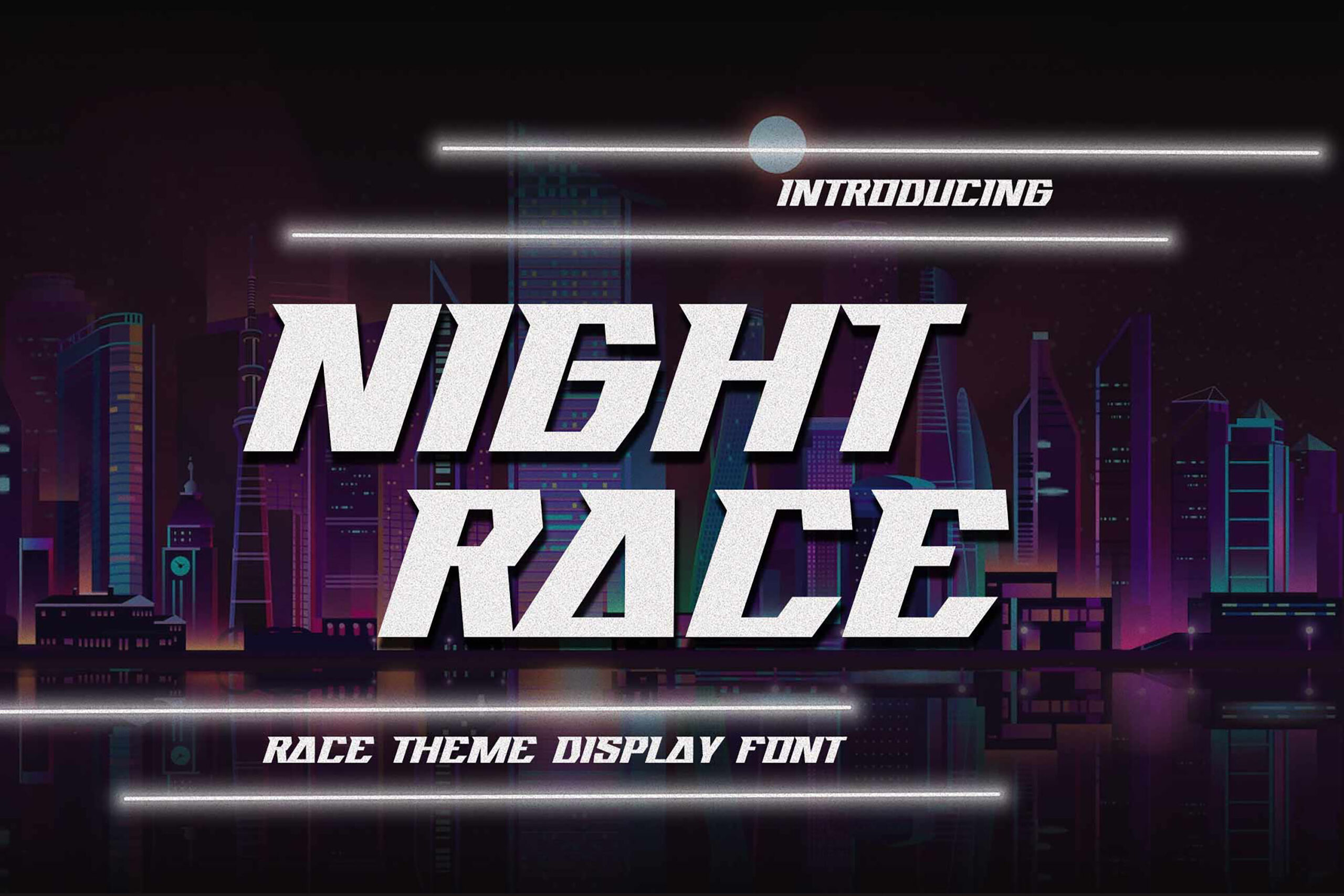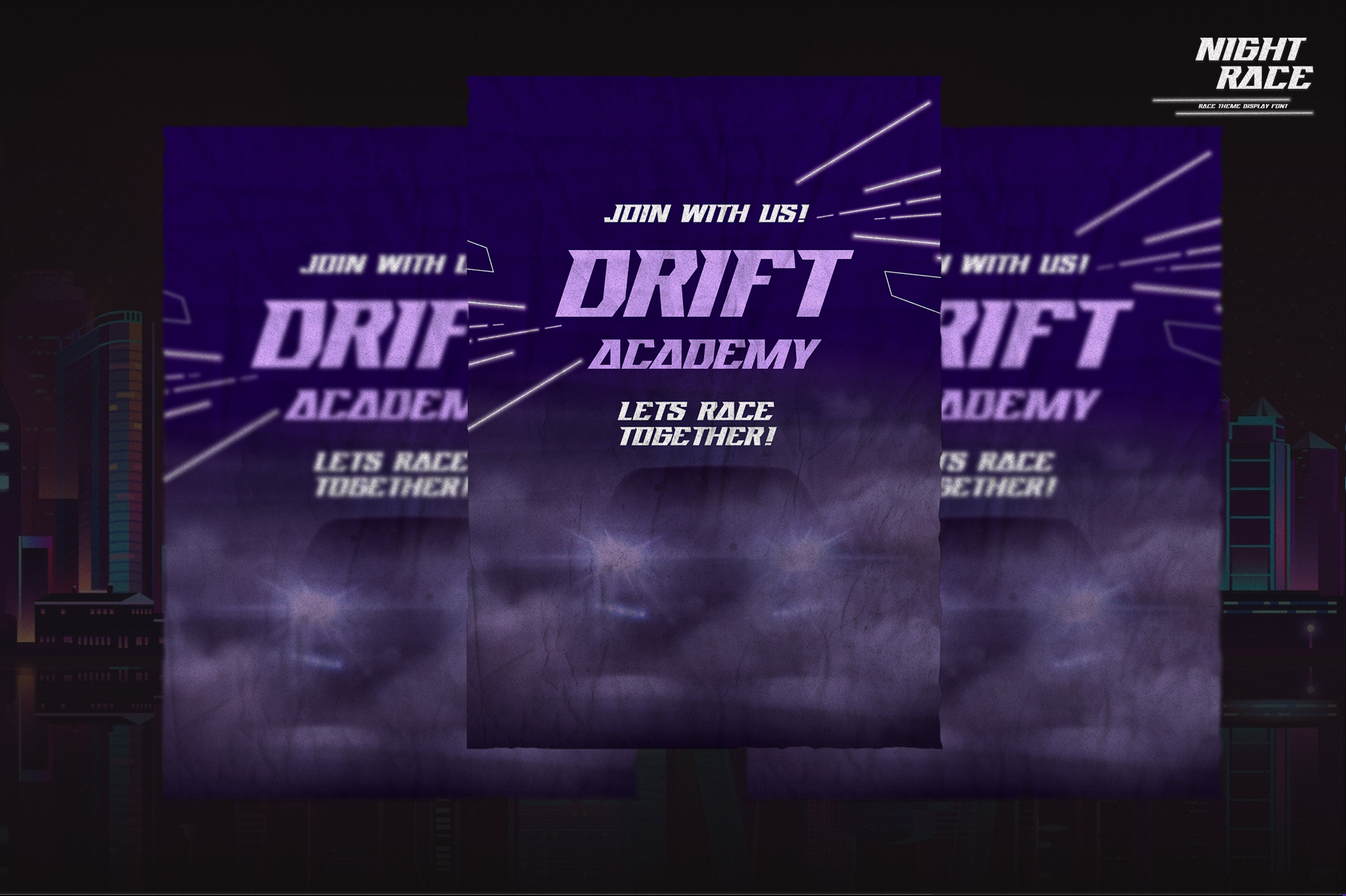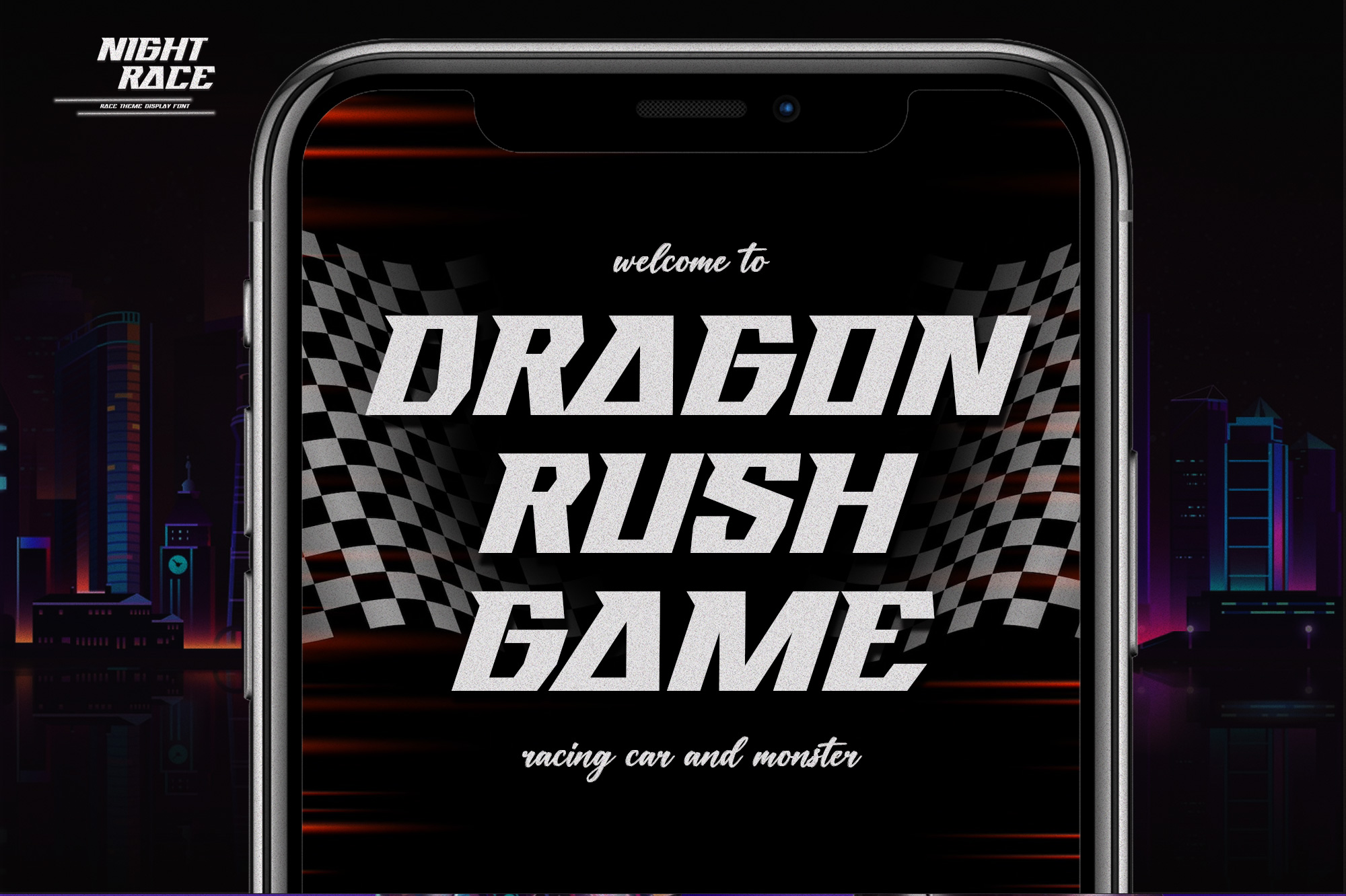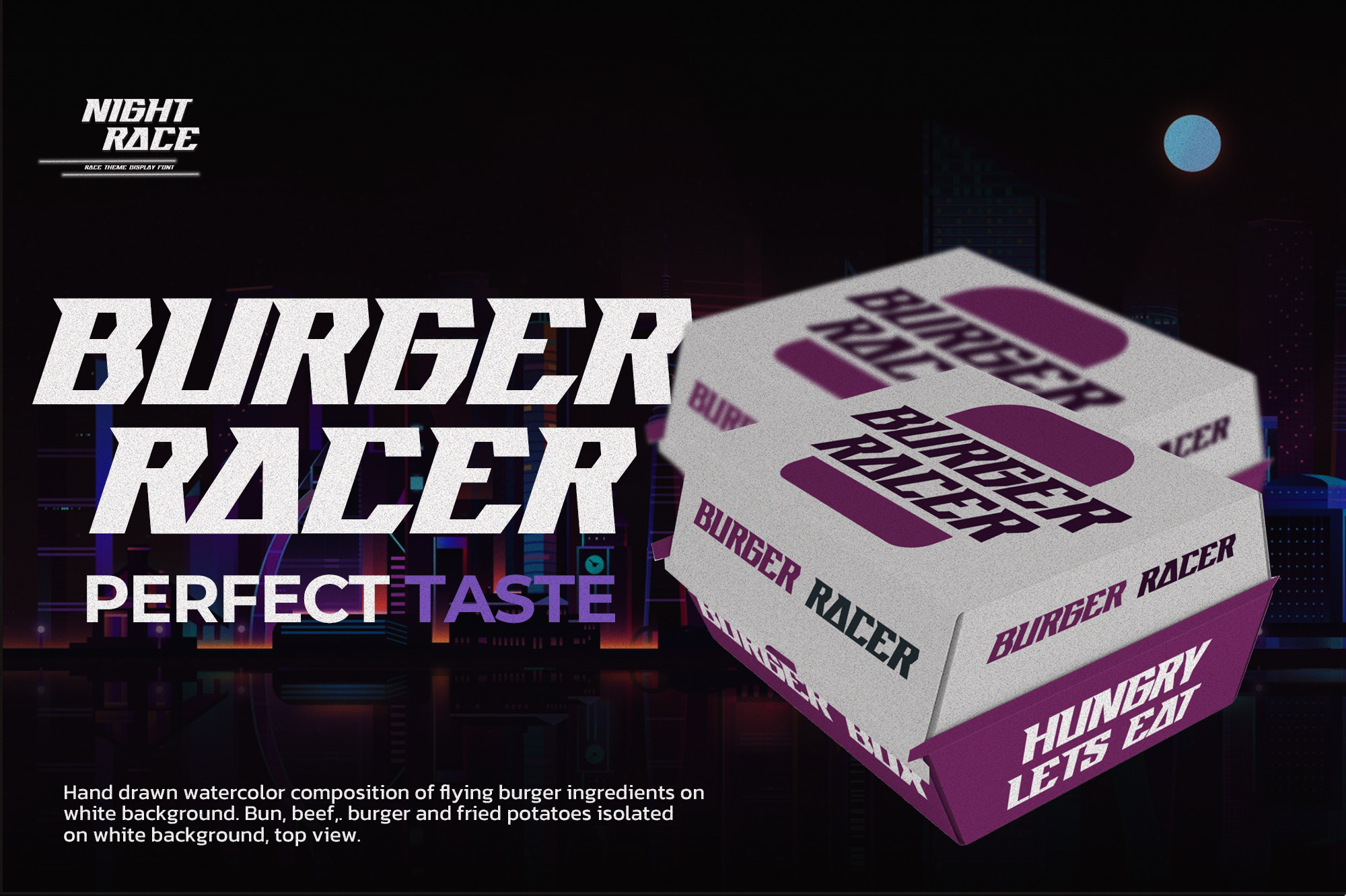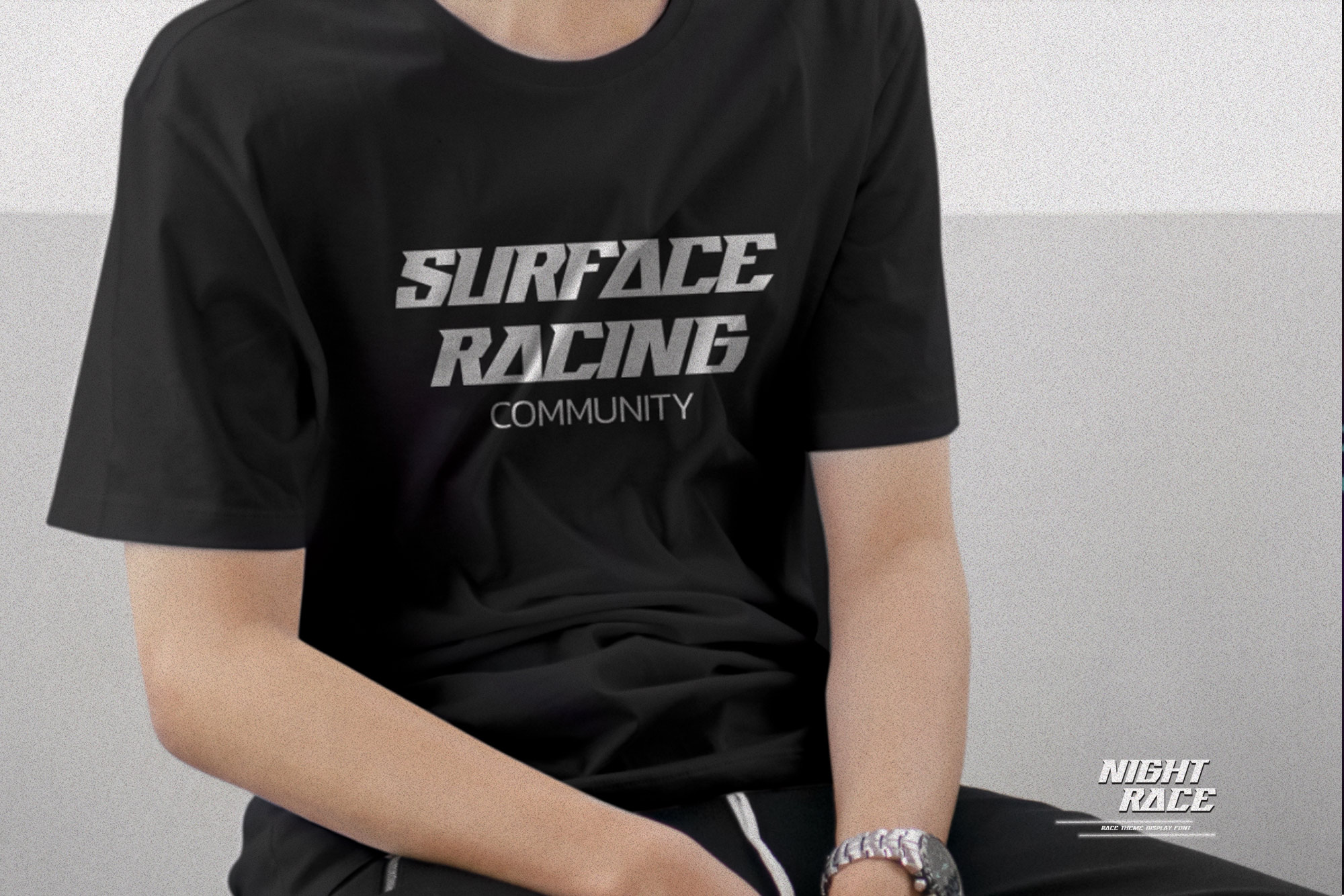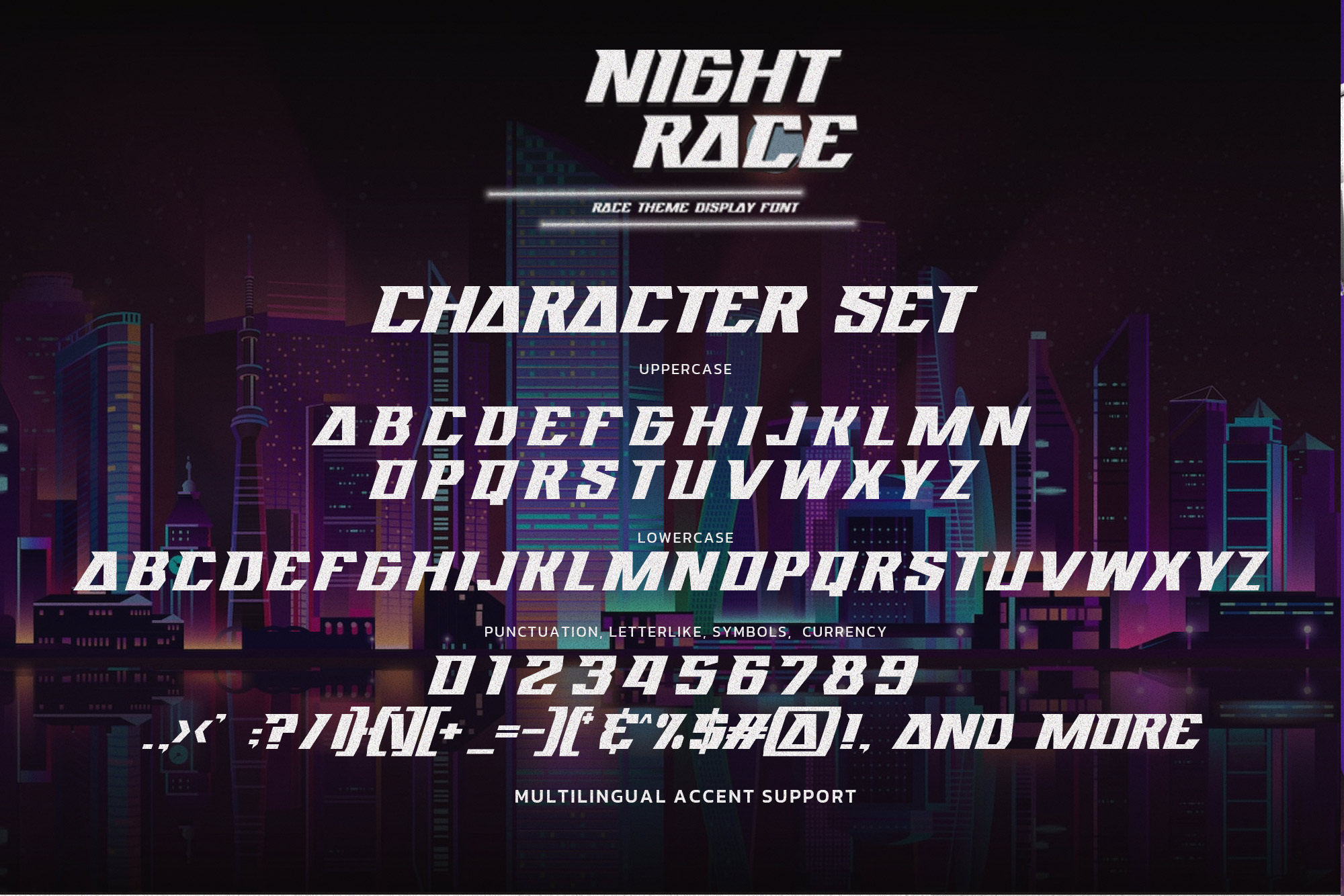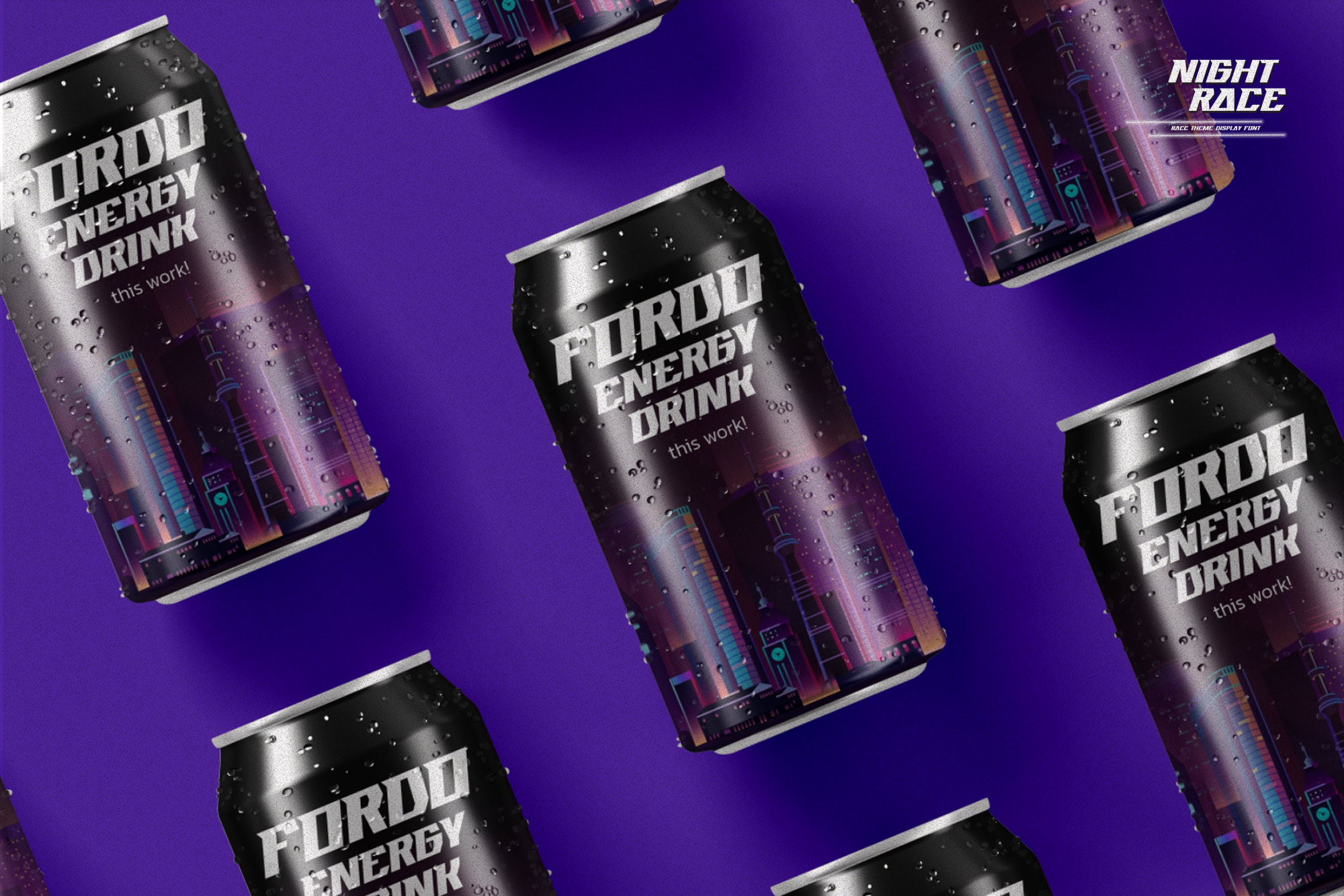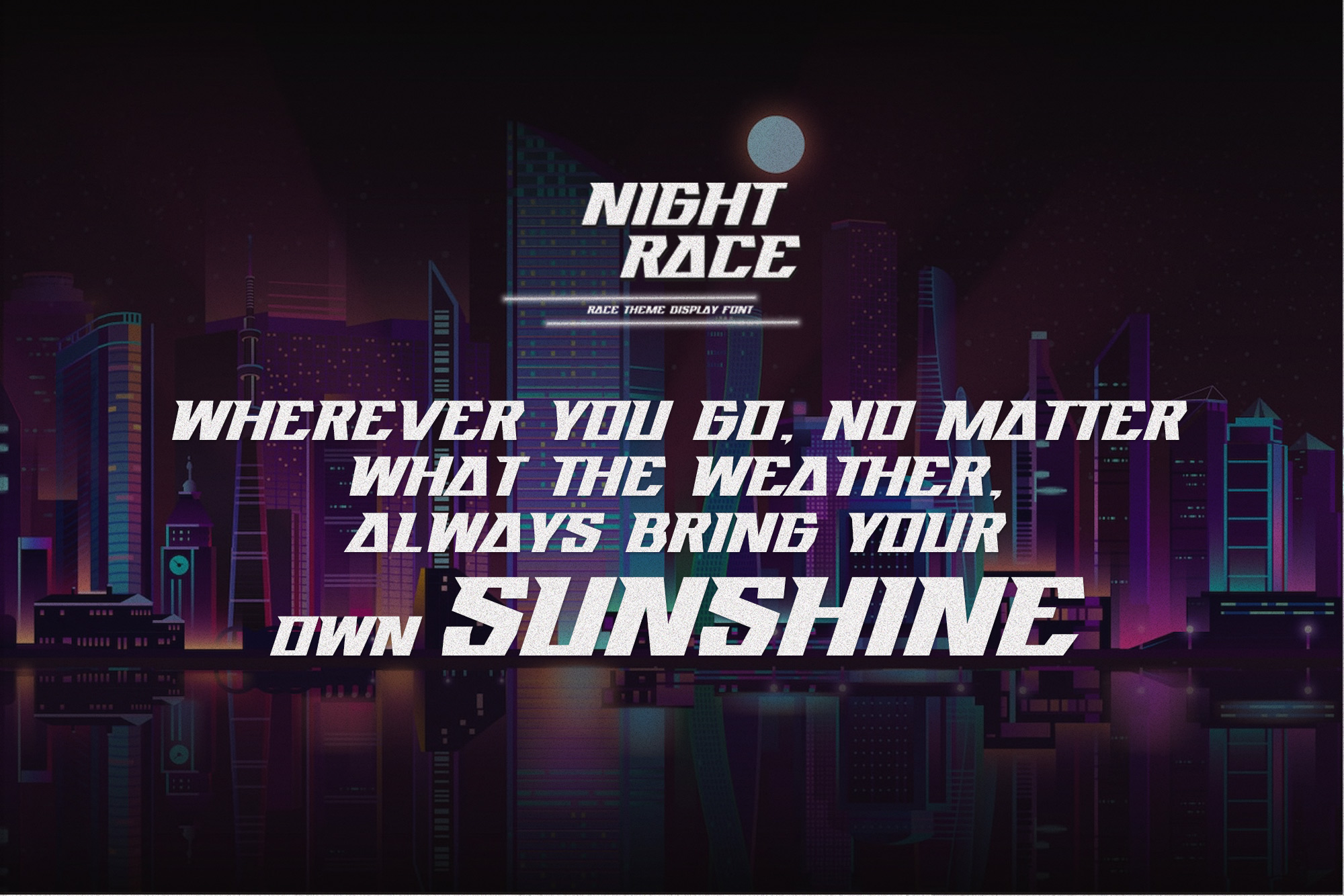
NIGHTRACE – Race Theme Display Font, modern style and dramatic movement that is written casually and quickly.
The best for labels, poster, project designs look modern, authentic and unique. It’s perfect for labels, quotes, posters, DIY projects, branding, packaging, greeting cards, websites, photography overlays, signs, scrapbooking, tags and so much more! That is why NIGHTRACE has a textured, and strong characteristic more natural look.